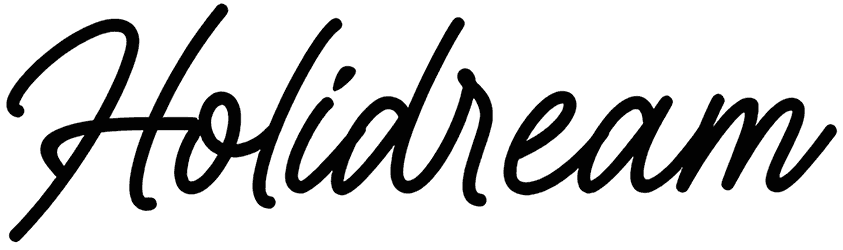
Holidream Font
A cursive script font similar to Holidream can play the role of a new flavor in your graphic content and add a fresh taste to your business cards, logos, branding, or social media posts. Aside from carrying a sense of professionalism, vitality, or tenderness, this handwritten font can add a personalized touch to all of your visual work.